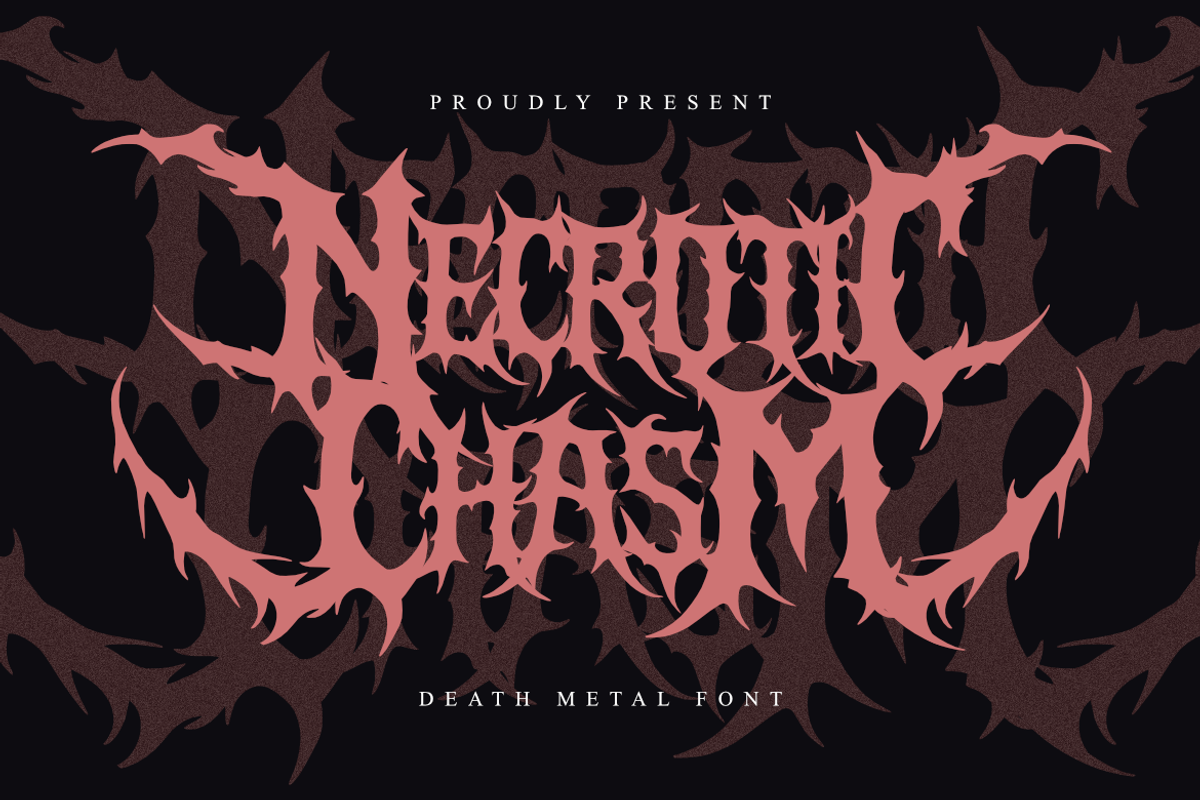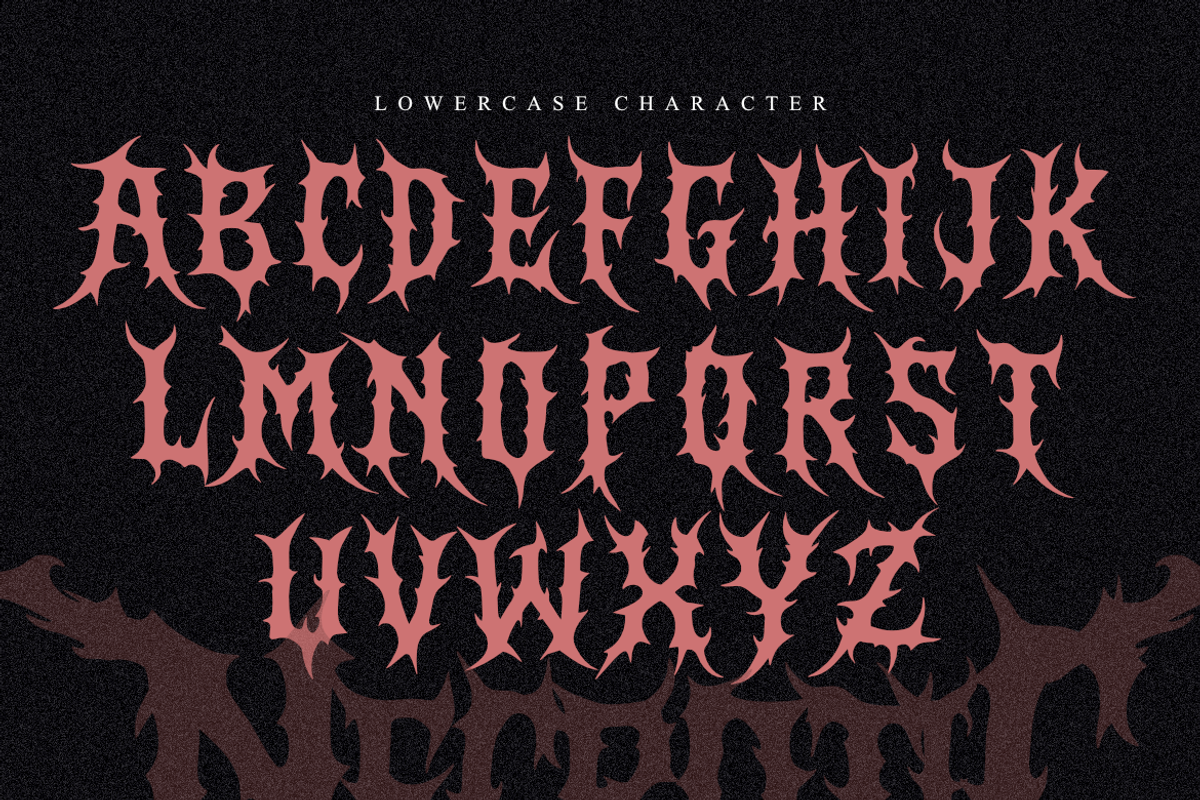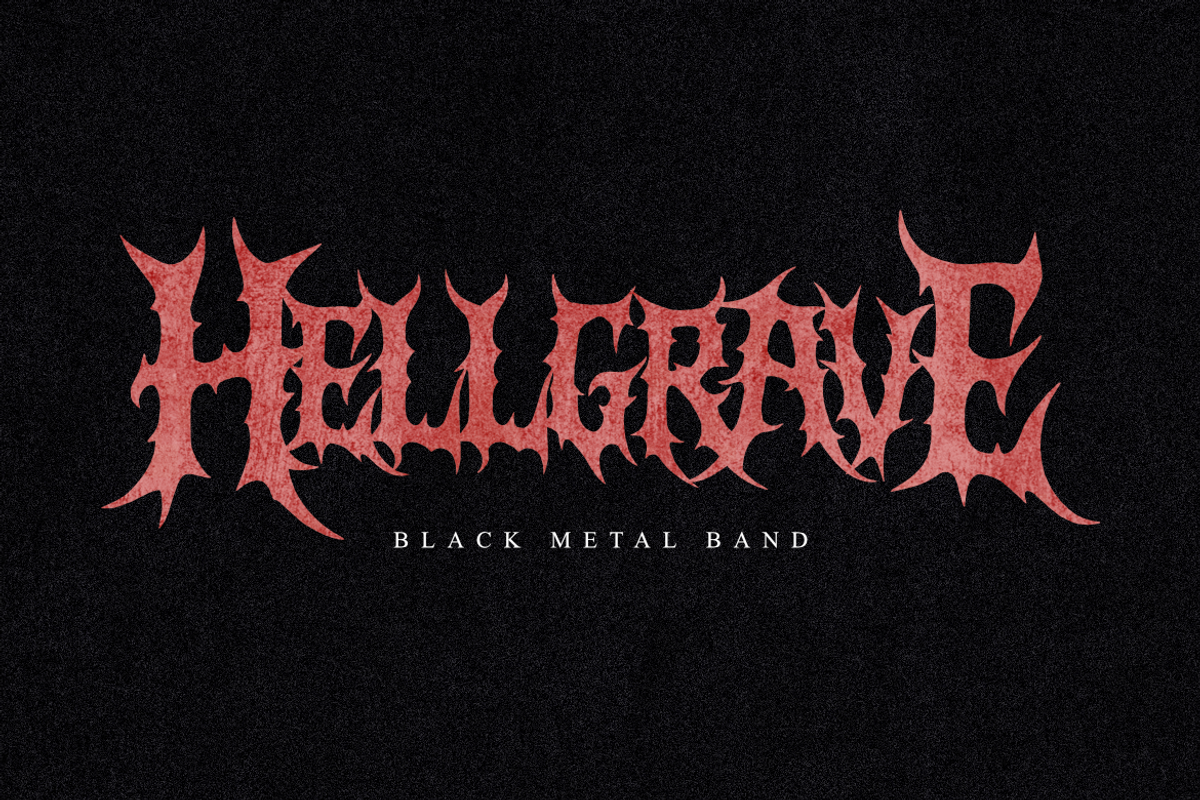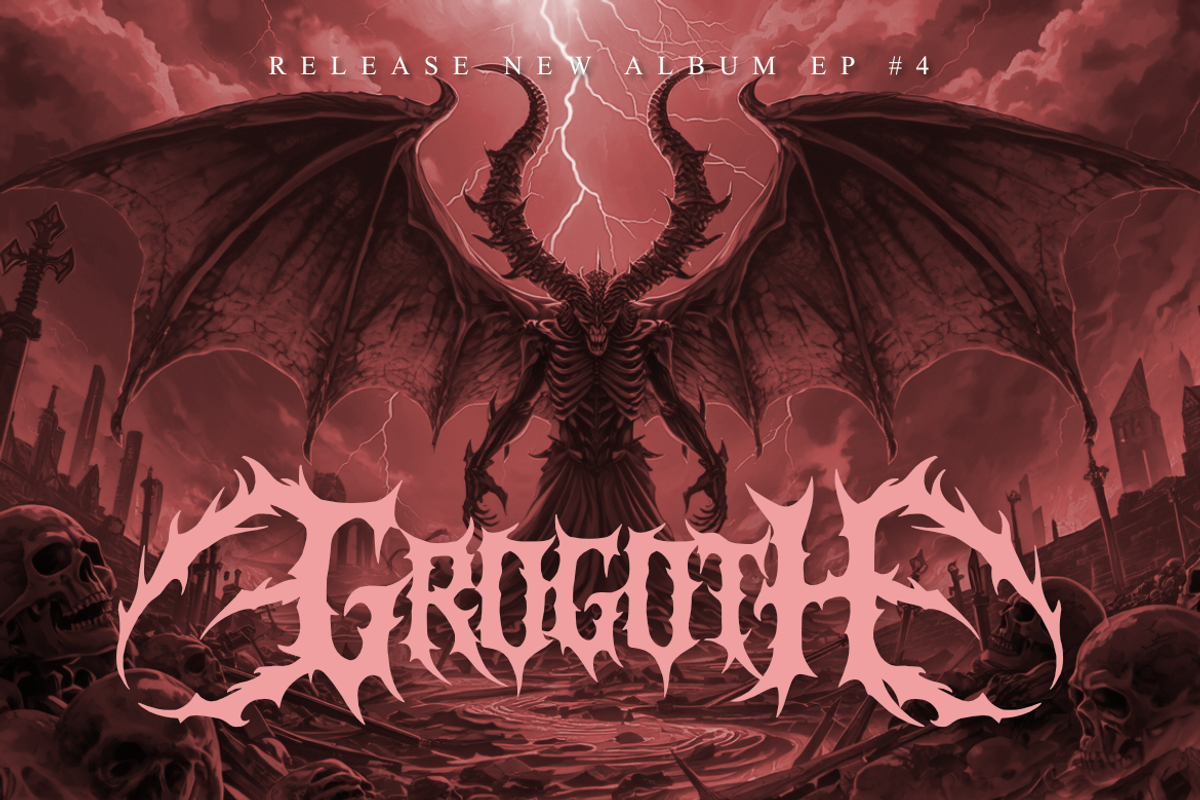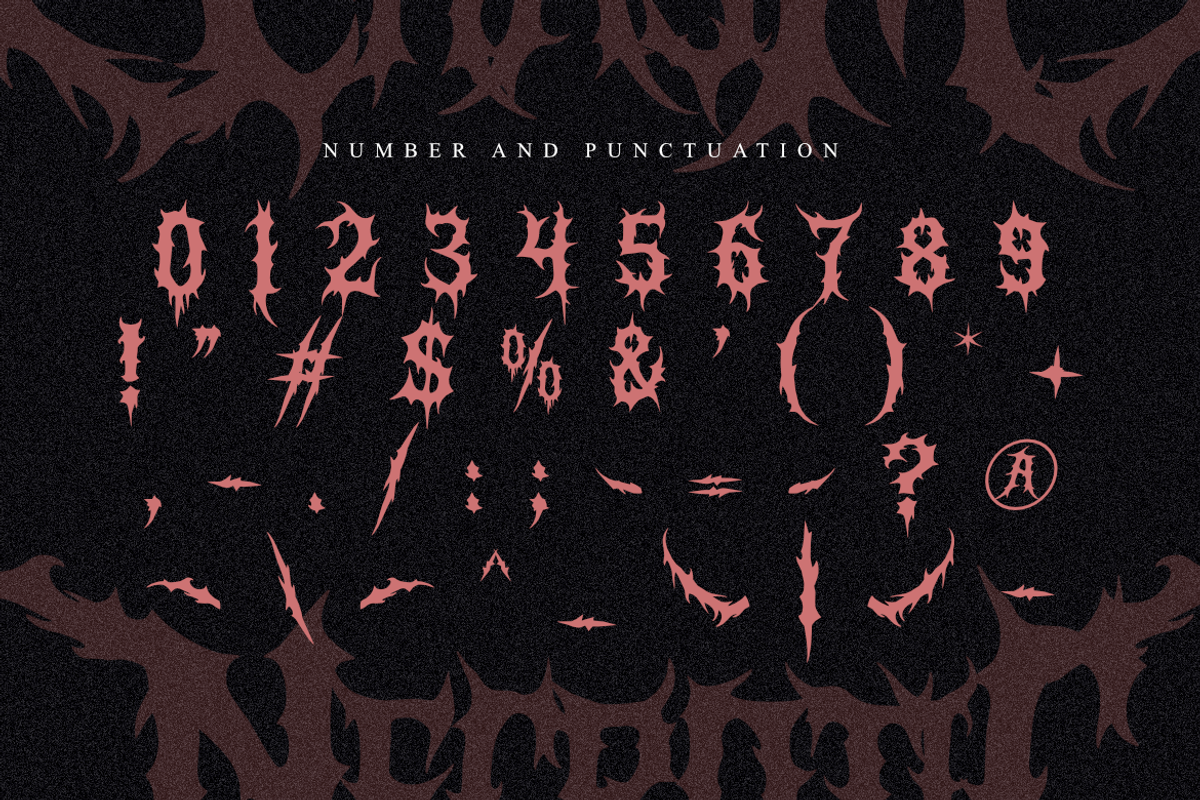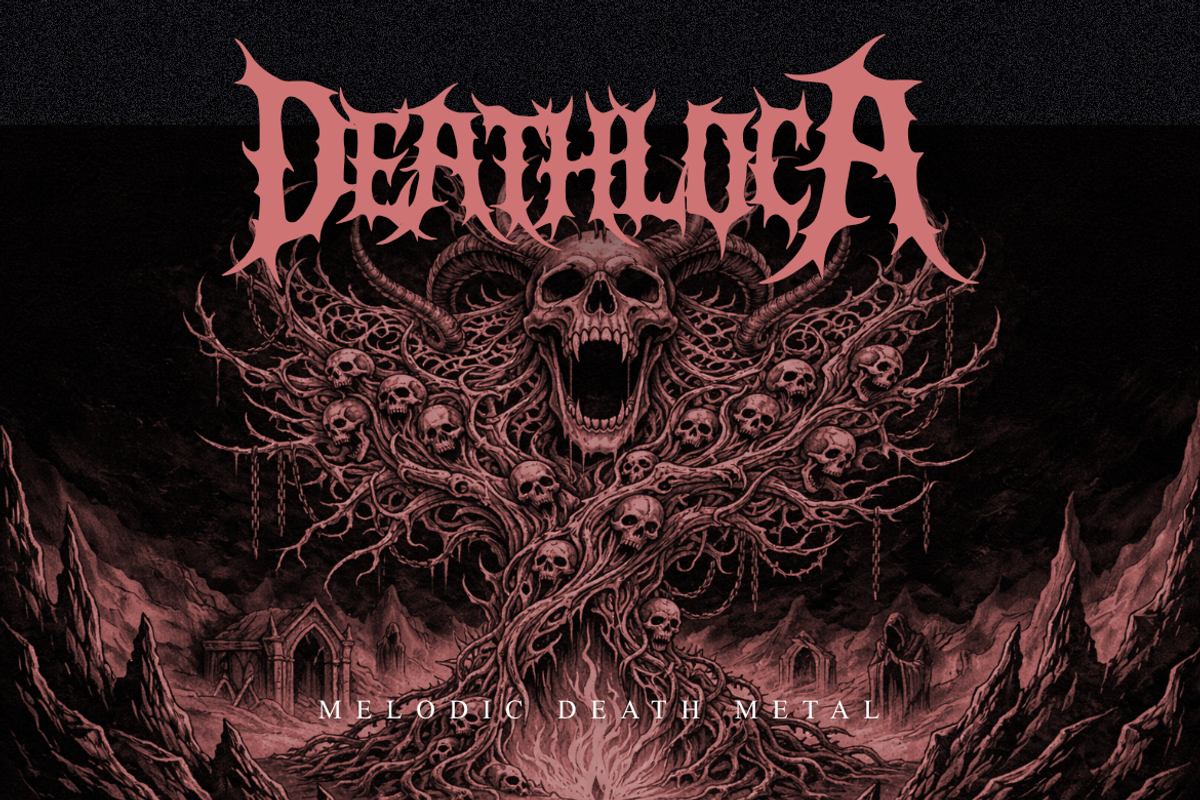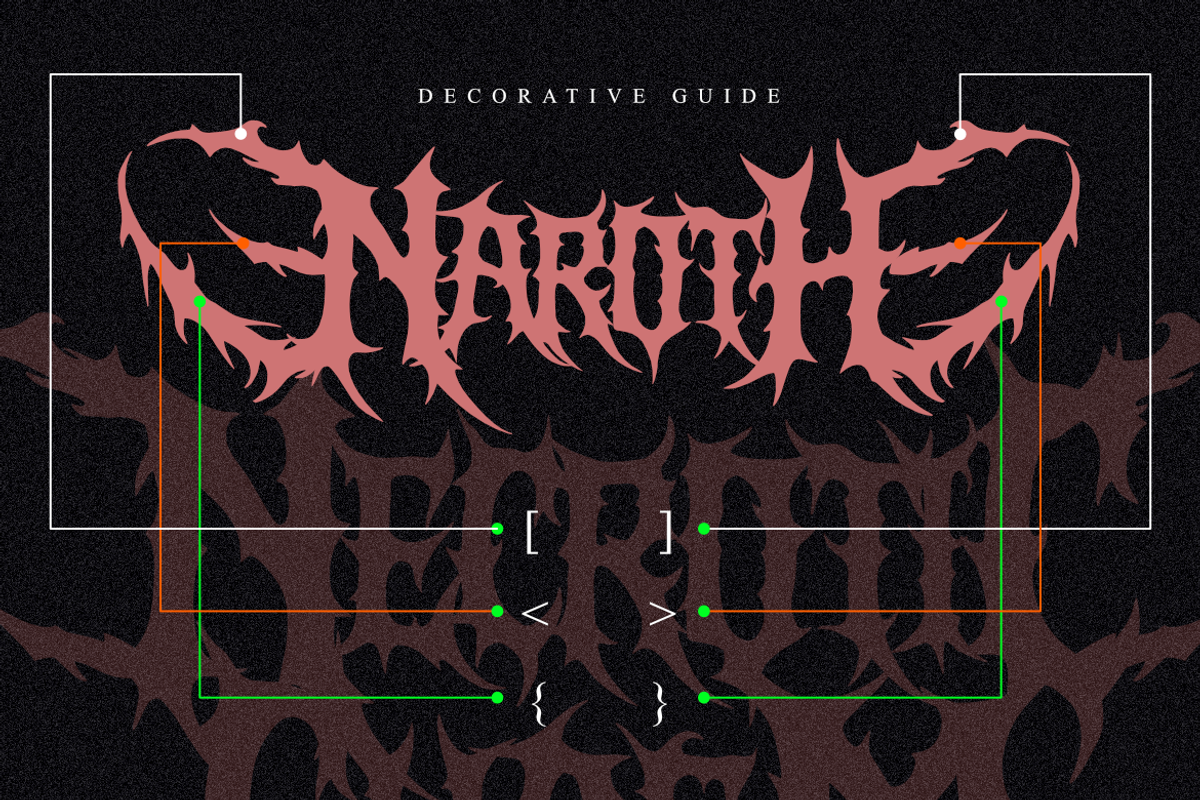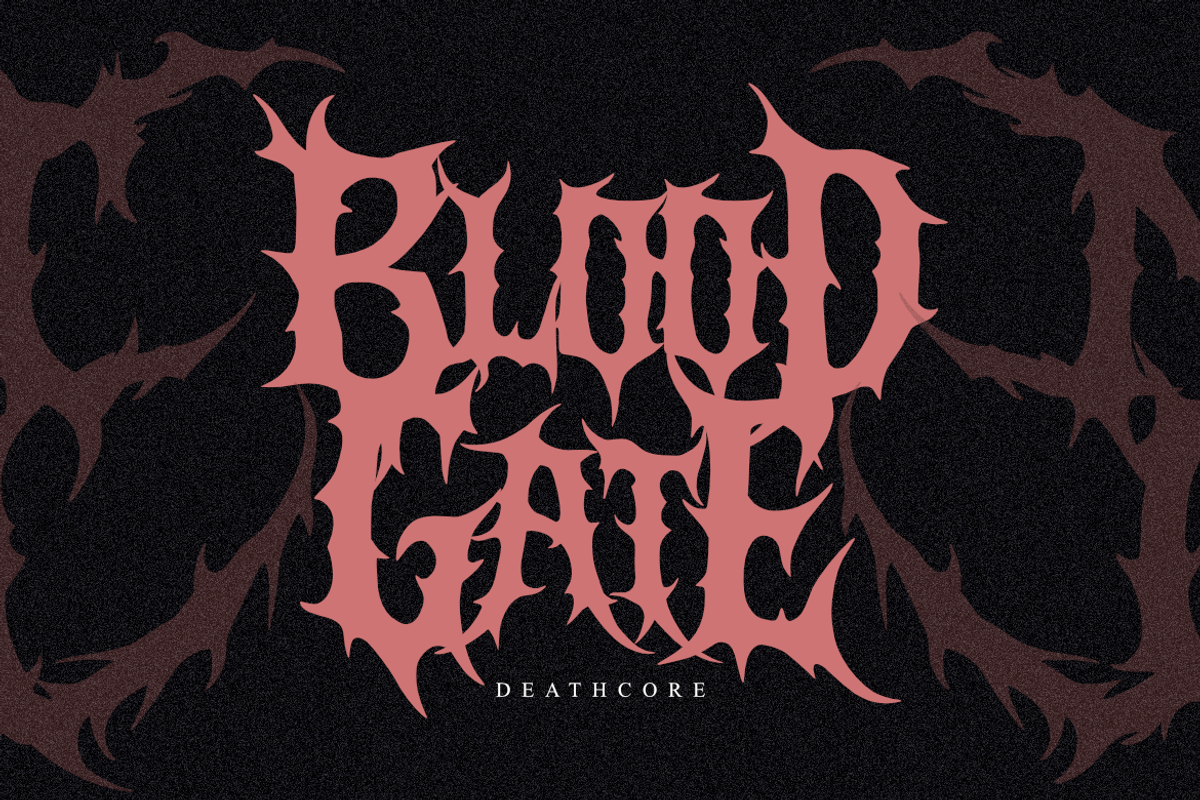
Necrotic Chasm | Brutal Death Metal
Dive into the abyss with Necrotic Chasm, an aggressive death metal typeface built for the boldest designs. This font draws inspiration from the twisted, thorny aesthetics of extreme music culture and dark fantasy. Every character is meticulously crafted to deliver a sense of raw power and chaotic beauty.
Necrotic Chasm is the perfect choice for creating legendary band logos, striking apparel designs, and atmospheric posters. Its unique silhouette makes it stand out, providing an authentic "hand-drawn" metal look that is hard to ignore.